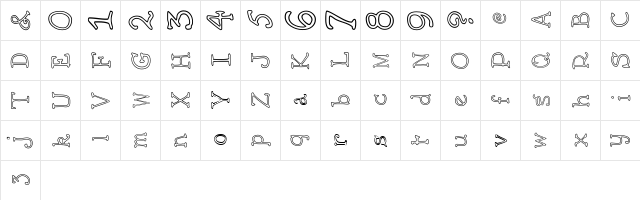
AEZ outline vertical Regular
Design Context for AEZ outline vertical Typeface
AEZ outline vertical brings ornamental detail and strong personality to headlines and identities, where visual impact matters more than quiet functionality.
Font Pairing: Pair with a clean neutral sans-serif for body copy to let AEZ outline vertical's character lead without overwhelming the composition.
Pro Tip: Use AEZ outline vertical exclusively at display sizes — it was designed to be seen, not read at length. Let a neutral companion handle body copy.